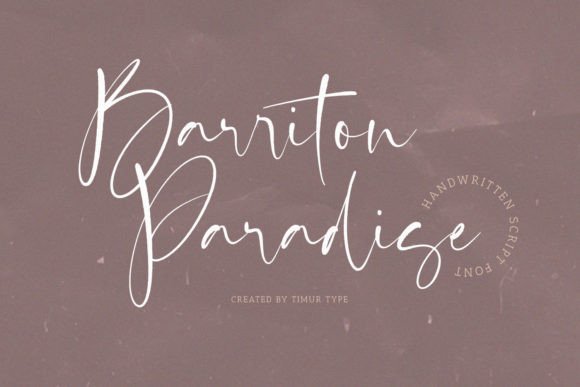
Do you remember that moment when you stumbled upon a font that spoke directly to your creative soul? Maybe it was the first time you laid eyes on a beautiful handwritten script, or perhaps it was the subtle nuance of a serif font that caught your attention. Whatever it was, you knew you had to have it. For me, that moment came when I discovered the enchanting Barriton Paradise Font.
This exquisite handwritten font is a true masterpiece, boasting delicate and elegant letterforms that will leave you spellbound. With its distinct and well-balanced design, Barriton Paradise Font is the perfect choice for designers looking to add a touch of sophistication and whimsy to their projects. Whether you’re crafting a wedding invitation, a logo, or a social media post, this font is sure to elevate your designs to new heights.
Barriton Paradise Font Key Features
- Font Family: Barriton Paradise Font is a unique, modern script font designed for various digital applications.
- Character Count: The font contains over 800 characters, including uppercase and lowercase letters, numerals, punctuation marks, and special characters.
- Font Size: The font is designed for use at medium to large font sizes, typically ranging from 14 to 36 points, to ensure optimal readability.
- Unique Characteristics: Features a mix of elegant and playful elements, making it suitable for a wide range of design applications, from invitations to branding materials.
Barriton Paradise Font Review
As a designer, I was excited to dive into the world of Barriton Paradise Font, a new and ambitious font. Here’s my honest take.
- Clean and Modern Look: Barriton Paradise Font has a sleek and contemporary feel that’s perfect for modern branding and digital projects.
- Unique Character Set: The font comes with a wide range of characters, including punctuation marks and symbols, making it a great choice for creative projects.
- High-Quality Typography: The font’s typography is well-crafted, ensuring that text looks sharp and clear, even at small sizes.
- Limited Weight Options: The font only comes in a few weights, which may limit its versatility for projects requiring multiple font weights.
- No Italic Styles: Unfortunately, Barriton Paradise Font doesn’t come with italic styles, which may be a drawback for designers who prefer to use italic text.
Overall, I think Barriton Paradise Font is a solid choice for modern projects, but its limitations may make it less suitable for projects requiring a wide range of font weights or italic styles. As a designer, I’d recommend it for branding, digital projects, and creative work where its unique look can shine.
Here are a few tips for getting the most out of Barriton Paradise Font:
- Use Barriton Paradise Font for headings and titles to create visual interest.
- Combine Barriton Paradise Font with other fonts to create a visually appealing typography.
Barriton Paradise Font is ideal for:
- Creating eye-catching headings and titles.
- Designing custom typography and graphic elements.
- Creating visually appealing presentations and documents.